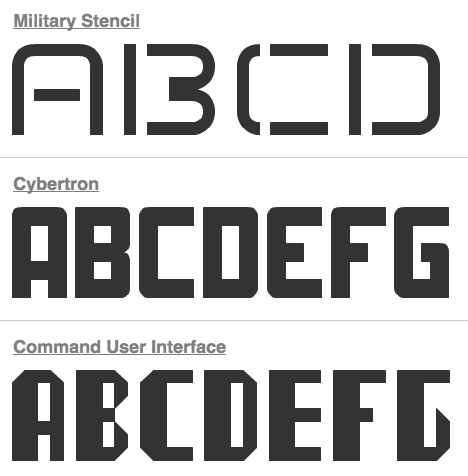
Softbox India
Software company founded in 2011 by Sudipto Mondal and Glen Mascarenhas, two programmers. At FontStruct, they created some modular typefaces in 2012: Military Stencil, Cybertron, Command User Interface. |